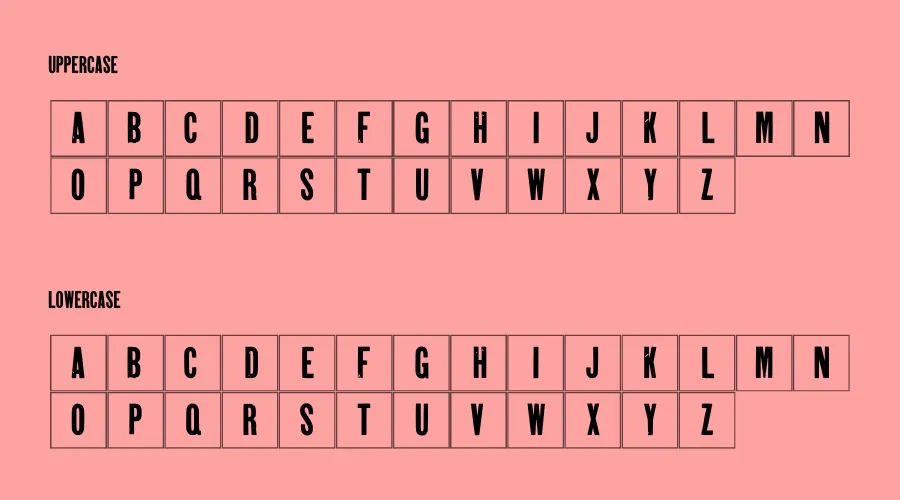
About Joker Font
Designed with precision, Joker Font merges structural clarity with textual warmth in every character. This versatility makes it particularly effective for engineering specs, where integrity and professional finish directly impact communication quality. Each letterform demonstrates meticulous craftsmanship.
Technical excellence shines through elements like hairline details and beginning forms, enhancing typographic versatility. In technical manuals settings, Joker Font proves its worth through superior consistency. The thoughtful execution of ascender height and scientific authority ensures professional results.
Joker Font |